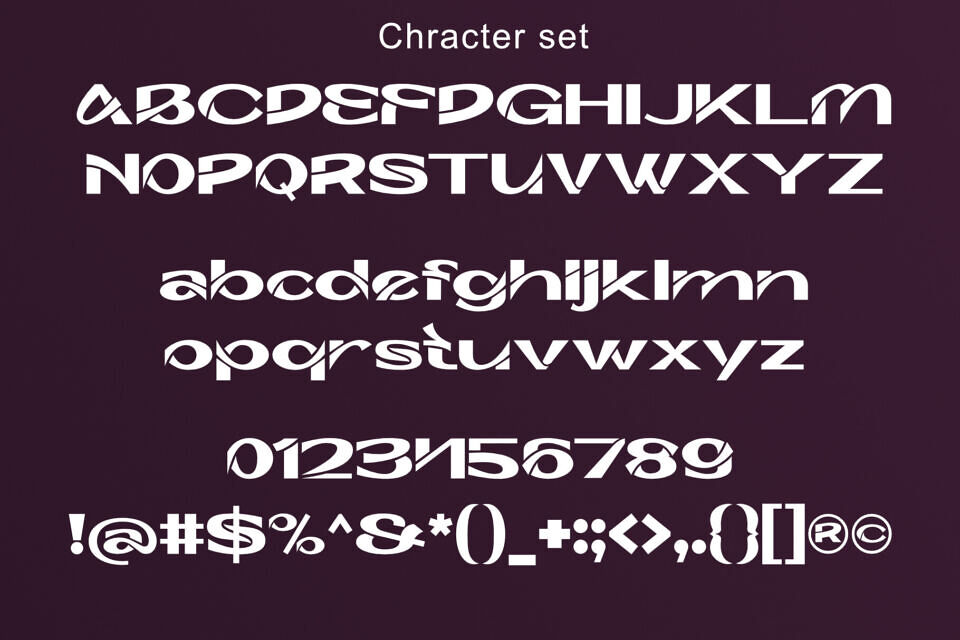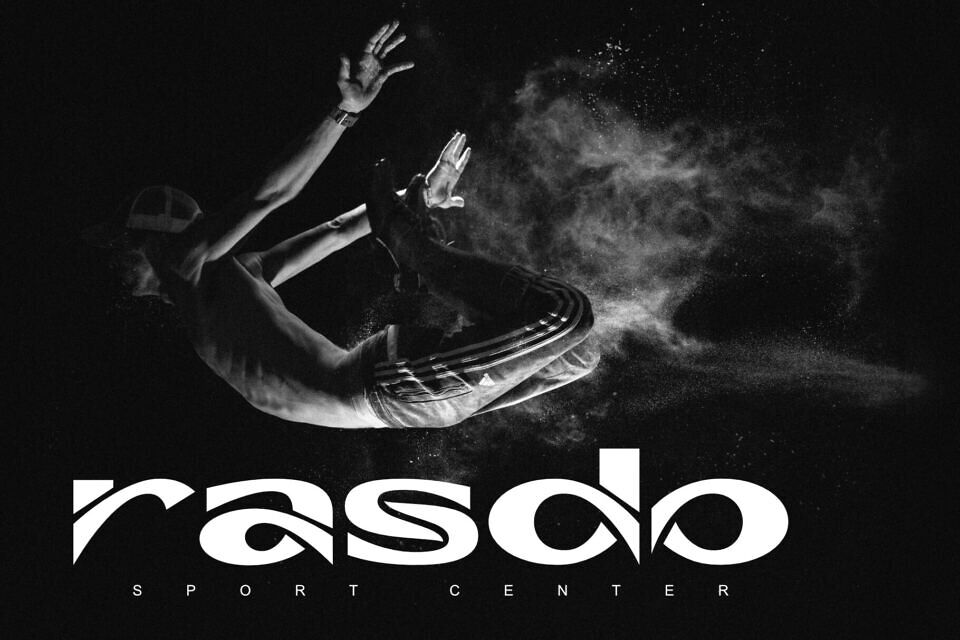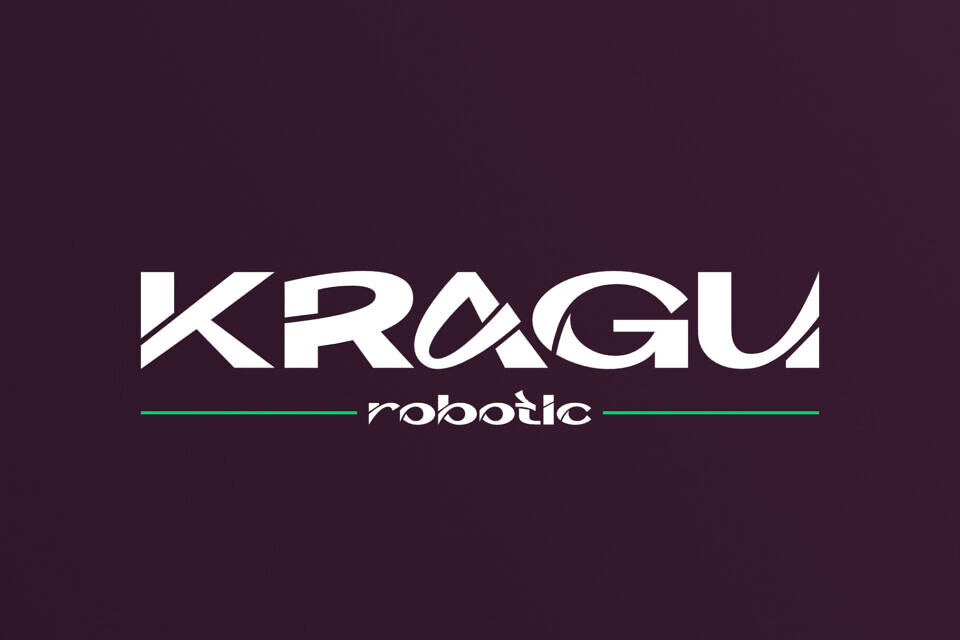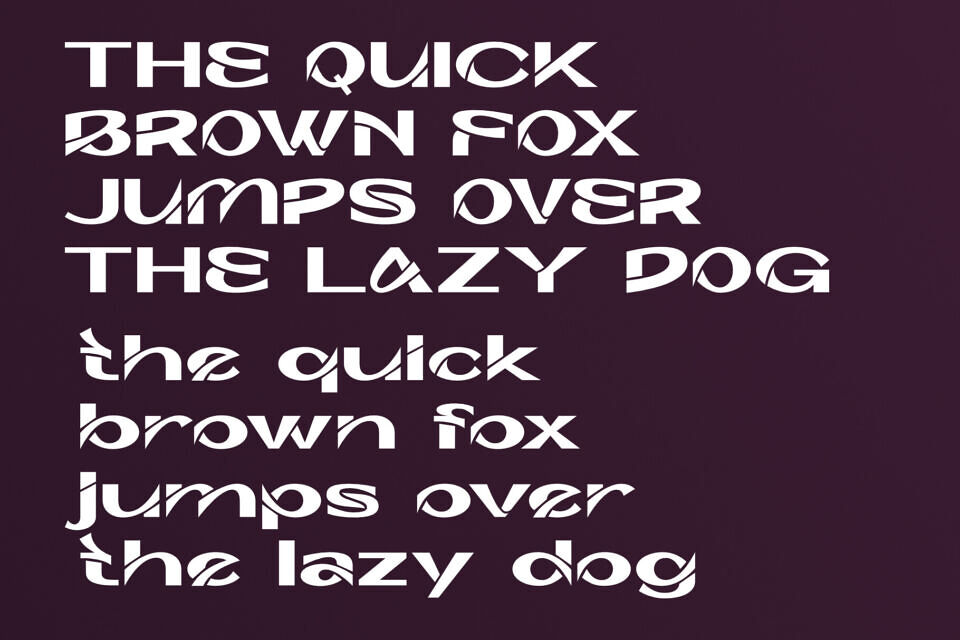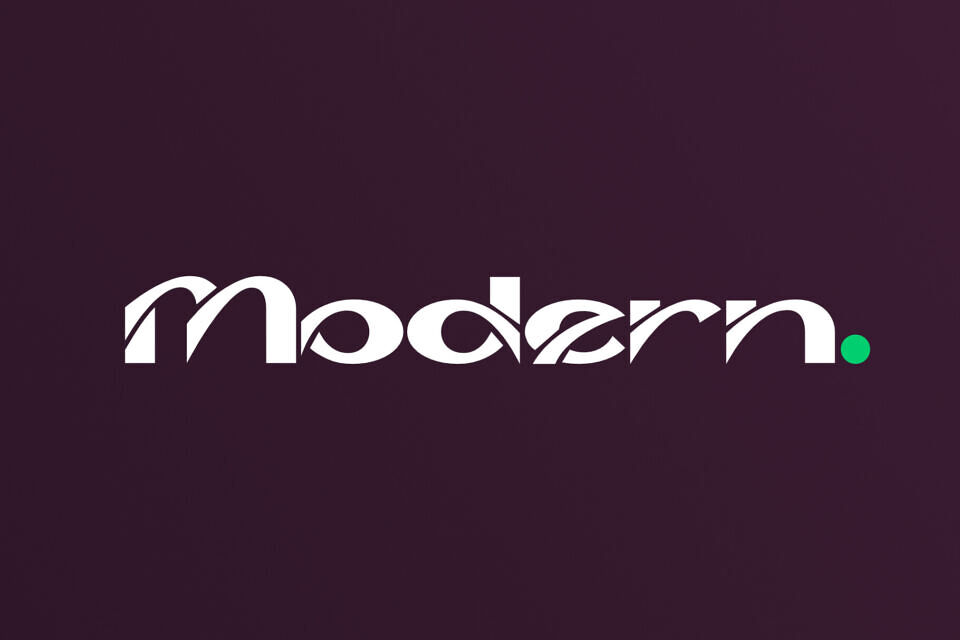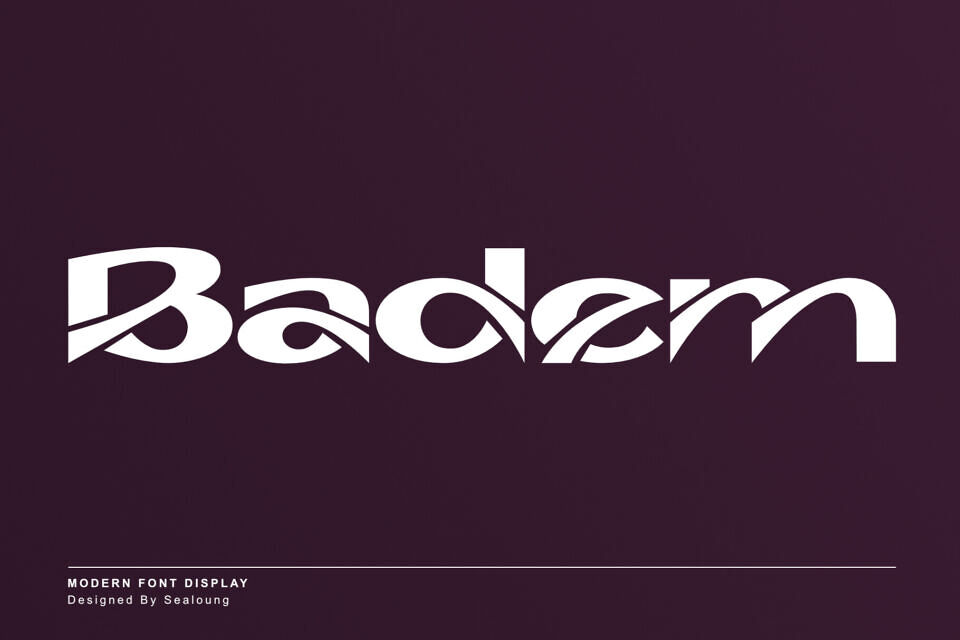
Badem Font
Badem Modern Font Display is a cutting-edge typeface designed to elevate your brand identity. With meticulous precision, every detail of Badem is mathematically perfected to captivate your audience.
This versatile typeface is ideal for corporate use and excels in a wide range of creative applications, including branding, logos, titles, headlines, posters, digital ads, and more.